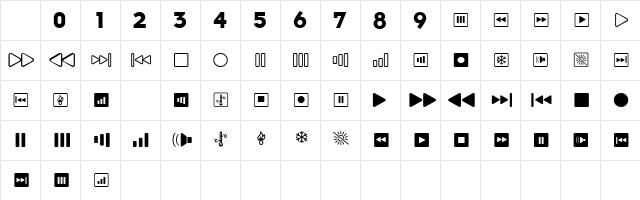
LL_Record Regular
Design Context for LL_Record Typeface
LL_Record is a composed and adaptable typeface that performs quietly and consistently across a wide range of design contexts.